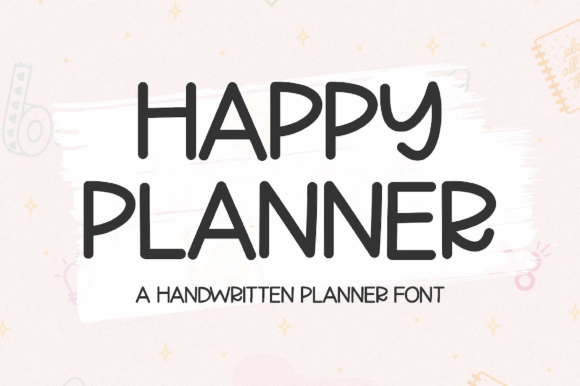
Introducing Happy Planner Font, the perfect script font for all your creative endeavors! Created by the talented AlexisCreative, this playful handwritten font is designed to resemble real handwriting, adding a delightful touch to any project. Whether you're designing digital planners, T-shirts, or any other creative masterpiece, Happy Planner Font is here to bring joy and personality to your designs.
Imagine the charm of handwritten notes, carefully crafted with love and care. Happy Planner Font captures the essence of this personal touch, giving your designs an authentic and unique feel. With its smooth and flowing strokes, this font effortlessly mimics the beauty of real handwriting, making it a must-have for anyone looking to create eye-catching designs.
Looking to design T-shirts that stand out from the crowd? Happy Planner Font is your secret weapon! With its playful and whimsical style, it adds a touch of personality to any design. Whether you're aiming for a fun and lighthearted vibe or a trendy and modern look, this font has got you covered. Let your creativity flow and watch as your T-shirts become conversation starters.
Digital planners have become increasingly popular, offering a convenient and customizable way to organize your life. With Happy Planner Font, you can take your digital planning to the next level. Its handwritten style adds a personal touch to your planner pages, making them not only functional but also visually appealing. Stay organized in style and make planning a joyful experience with Happy Planner Font.
But why stop there? Happy Planner Font is a versatile tool that can be used in a wide range of projects. Create stunning logos, captivating social media posts, elegant invitations, and so much more. The possibilities are endless when you have such a versatile and expressive font at your disposal.
Don't settle for ordinary fonts that lack personality. Choose Happy Planner Font and infuse your designs with a touch of joy and creativity. Stand out from the crowd, make a lasting impression, and let your designs speak volumes. Download Happy Planner Font today and unlock a world of endless possibilities!